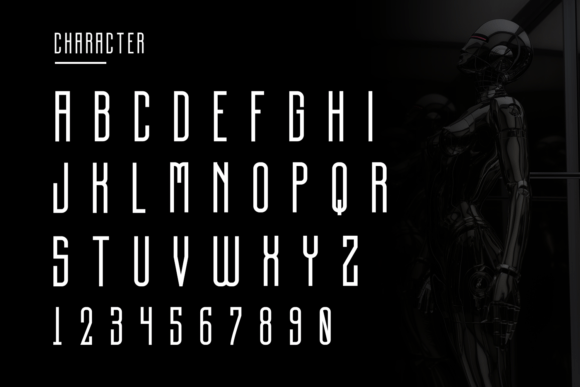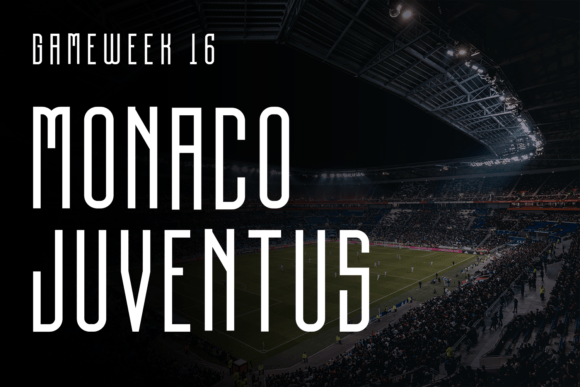
Ginoda Font: Elevate Your Designs with a Cool and Unique Sans Serif Font
In the world of typography, a font can make or break a design. A well-crafted font can elevate your creation, making it stand out from the crowd. If you’re a designer or crafter looking for a unique and versatile font, look no further than Ginoda Font. In this article, we’ll explore the features and benefits of Ginoda Font, and why it’s a must-have addition to your font library.
What is Ginoda Font?
Ginoda Font is a cool and unique sans serif font that’s been meticulously crafted to provide a high level of detail and clarity. Its sleek and modern design makes it perfect for a wide range of applications, from digital projects to print materials. Whether you’re working on a logo, brochure, or website, Ginoda Font is sure to make a lasting impression.
Key Features of Ginoda Font
- Unique Sans Serif Design: Ginoda Font boasts a distinctive sans serif design that sets it apart from other fonts. Its clean lines and minimalist aesthetic make it perfect for modern designs.
- Highly Detailed: Ginoda Font is crafted with attention to detail, ensuring that every letter and character is precise and legible.
- Versatile: This font is suitable for a wide range of applications, including logos, headings, body text, and more.
- Easily Readable: Ginoda Font is designed to be easily readable, even at small sizes, making it perfect for body text and captions.
Benefits of Using Ginoda Font
So, why should you choose Ginoda Font for your next project? Here are just a few benefits of using this amazing font:
- Enhance Your Designs: Ginoda Font has the potential to elevate any creation, adding a touch of sophistication and style.
- Stand Out from the Crowd: With its unique design, Ginoda Font will help your designs stand out from the competition.
- Save Time: With Ginoda Font, you can create professional-looking designs quickly and easily, saving you time and effort.
- Improve Legibility: Ginoda Font’s clear and legible design ensures that your message is communicated effectively, even at small sizes.
Who Can Benefit from Ginoda Font?
Ginoda Font is perfect for a wide range of designers and crafters, including:
- Graphic Designers: Add a touch of sophistication to your designs with Ginoda Font.
- Digital Artists: Use Ginoda Font to create stunning digital art and illustrations.
- Crafters: Add a professional touch to your craft projects, such as handmade cards and invitations.
- Web Designers: Use Ginoda Font to create clean and modern website designs.
In conclusion, Ginoda Font is a cool and unique sans serif font that’s perfect for designers and crafters looking to elevate their designs. With its highly detailed and versatile design, Ginoda Font is sure to become a valuable addition to your font library. Whether you’re working on a digital project or print material, Ginoda Font is the perfect choice for adding a touch of sophistication and style.